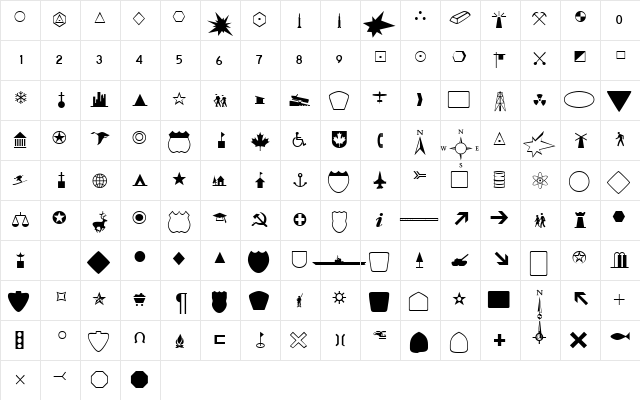
Geographical Regular
Design Context for Geographical Typeface
Geographical is a composed and adaptable typeface that performs quietly and consistently across a wide range of design contexts.